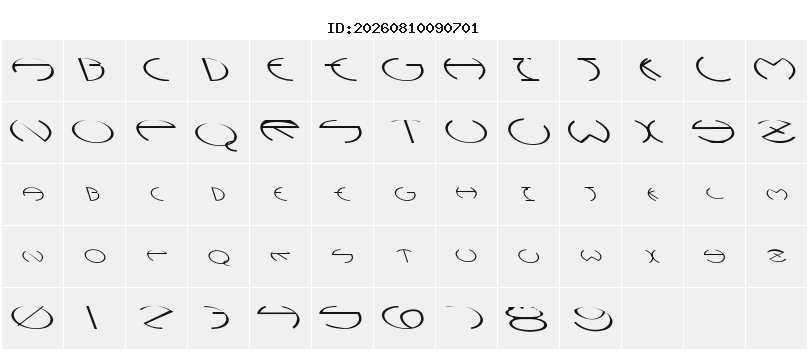
PCRounders Large Lefty Preview
• Font Name: PCRounders Large Lefty
• Full Font Name: PCRounders Large Lefty
About PCRounders Large Lefty.ttf
PCRounders Large Lefty.ttf is a modern, elegant sans-serif font designed for ultimate readability and visual harmony. Perfect for branding, headlines, web design, and print materials.